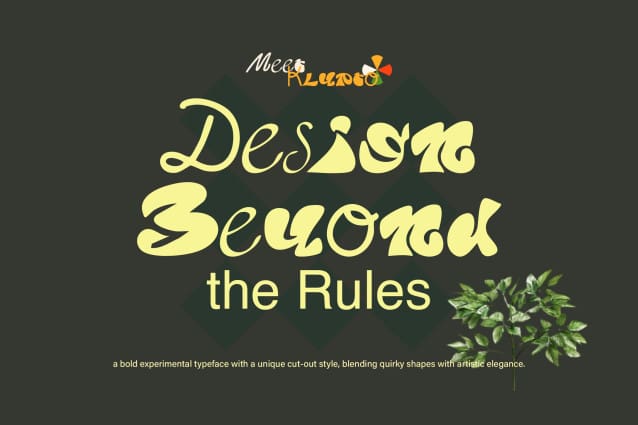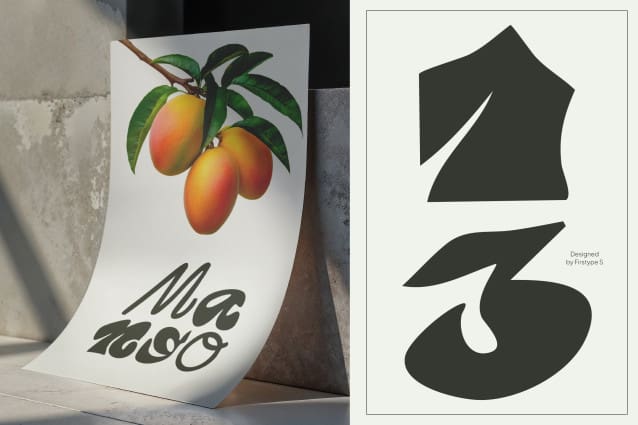
FT Klypto – Groovy Display Typeface Font
FT Klypto – Groovy Display Typeface Font is a playful retro display typeface with groovy cuts and bold shapes. This version is provided for personal use only and is perfect for testing, experimenting, and trying out the style in your design projects before purchasing the full license.